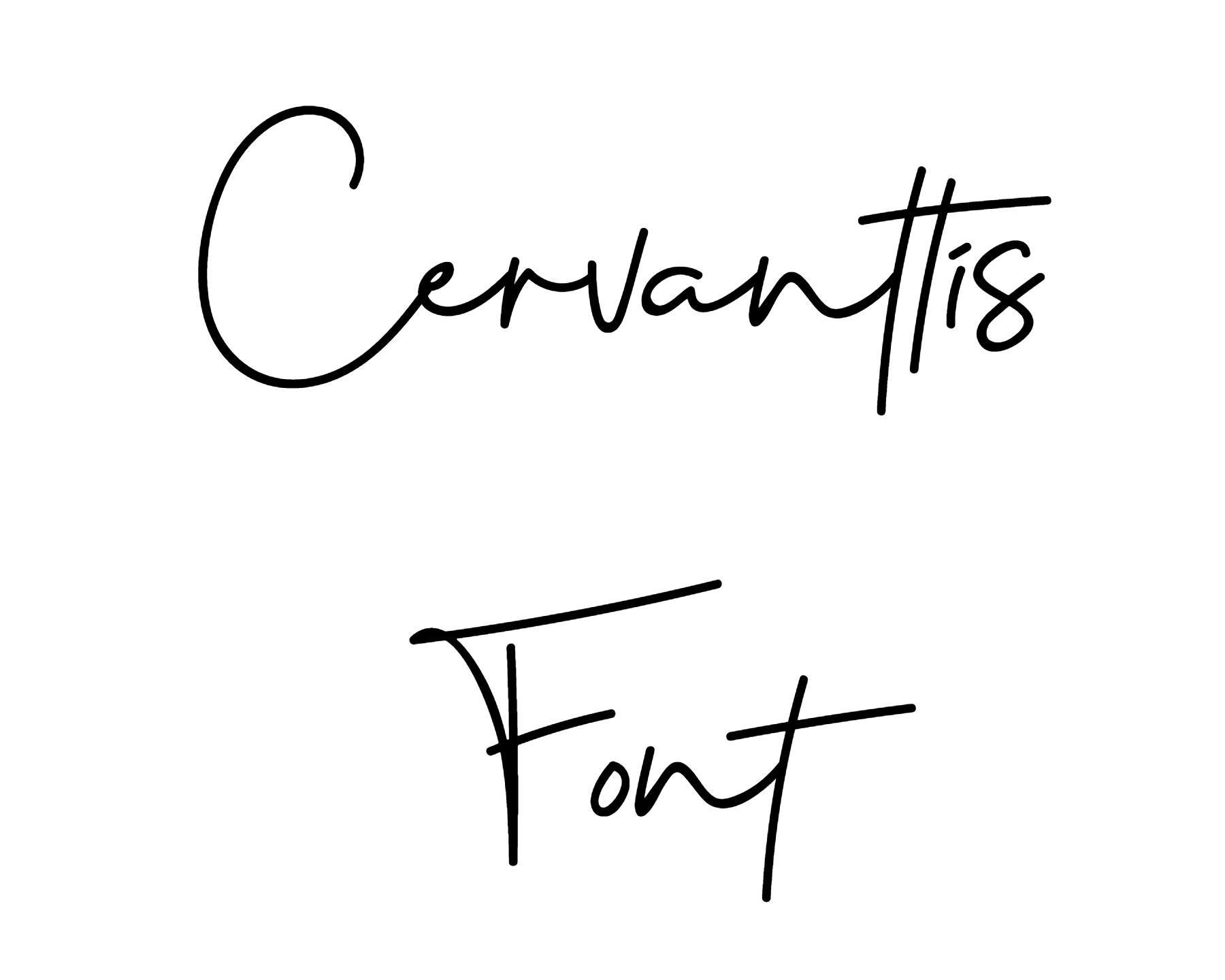
Cervanttis
Cervanttis is a handwritten font designed by Rian Rahardi and published by Creatype Studio Co (2019). The letters have the small wobbles and personality of real handwriting, so your text feels warm instead of printed. It's a free download, and you can try it with your own text in the preview above first.
What You Can Type With Cervanttis
With complete upper and lowercase letters and all ten digits, Cervanttis is ready for real wording, not just a single headline. Everyday marks like &, !, ? and @ are there too. Thanks to its accented letters, it also works for Spanish, French, German, Portuguese and Italian, not just English.
Ligatures and Smart Letters in Cervanttis
Where Cervanttis Works Best
Designers usually reach for fonts like Cervanttis when they're making greeting cards, journal pages and friendly social posts. Its lowercase letters are small compared to the capitals, so set it a size or two bigger than usual. Set it a bit larger than you would a normal text font. Handwriting styles lose their charm once they get too small to read comfortably.
Who designed Cervanttis font?
Cervanttis was designed by Rian Rahardi and published by Creatype Studio Co. The copyright line inside the font is dated 2019. DafontStyle has 28 more fonts by Rian Rahardi, and a few are linked above.
Does Cervanttis have ligatures?
Yes. Cervanttis has ligatures that turn on by themselves in most design apps and browsers, so you don't need to do anything special.
Does Cervanttis support accented letters?
Yes. Cervanttis includes the accented letters needed for Spanish, French, German, Portuguese and Italian, so it works for more than just English.